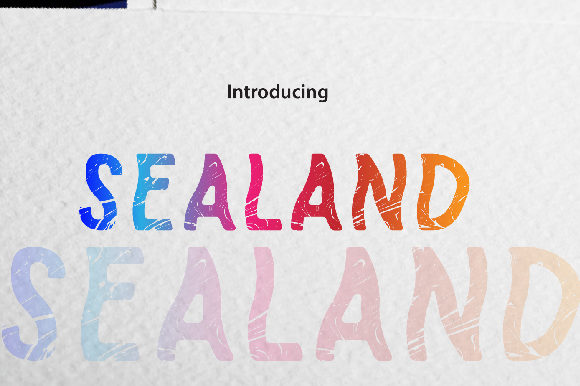
Behold, Sealand Font – a chromatic masterpiece, a symphony of colors, designed to ignite your creativity and transport your designs to uncharted territories. Dive into the depths of its nautical charm and let its sporty elegance elevate your projects to new heights. Whether you're a seasoned designer or just starting your creative journey, Sealand Font is your trusted co-pilot, guiding you through rough waters and into tranquil harbors of design excellence.
With Sealand Font, dive into a kaleidoscope of colors, each shade meticulously crafted to evoke emotions and add vibrancy to your creations. Its strokes are like brushstrokes of a master artist, painting stories and igniting imaginations with every letter you type. From lively blues reminiscent of crashing waves to golden hues that capture the warmth of a setting sun, Sealand Font is a symphony of colors that will leave your audience mesmerized.
Its sporty and unique aesthetic is perfect for adding a touch of athleticism and individuality to your designs. Picture the sleek lines of a racing sailboat cutting through the waves, or the vibrant colors of a tropical beach volleyball tournament. Sealand Font captures the essence of adventure and活力, propelling your designs forward with a sense of motion and energy.